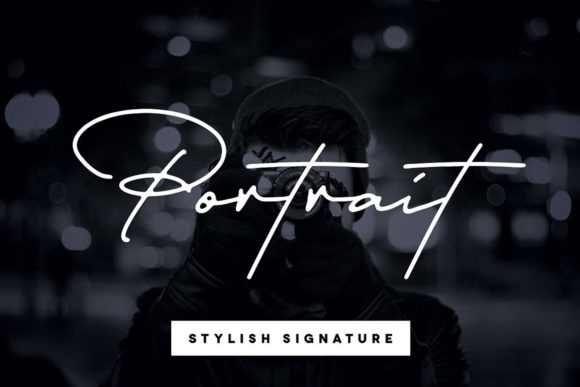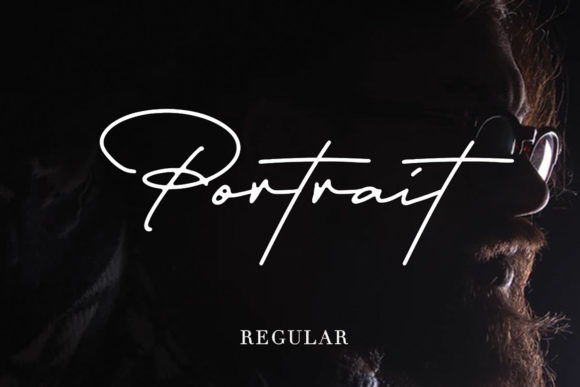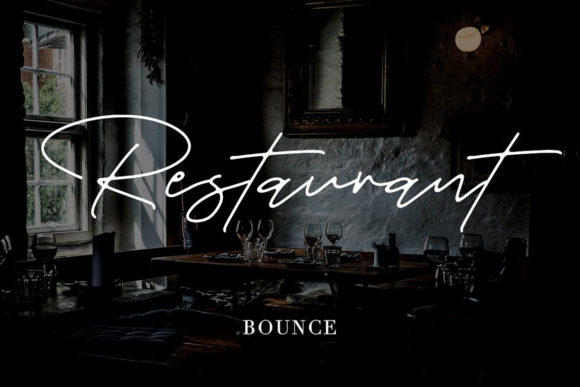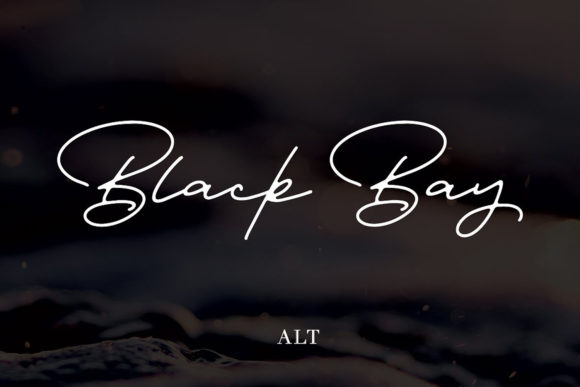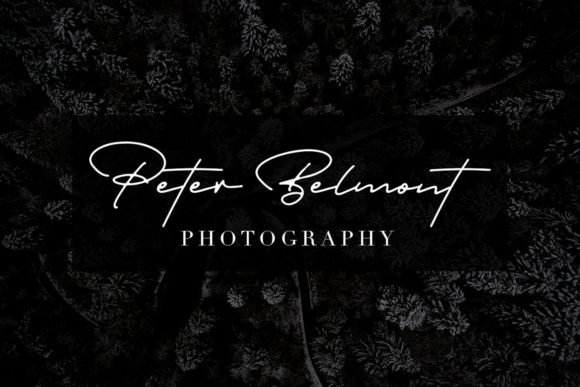
Portrait Font
About Portrait Font
Portrait is a handwritten font with a natural and stylish flow. It features an incredibly classic style, while still keeping a charming feel. This handwritten font is the perfect font for making original and outstanding designs.